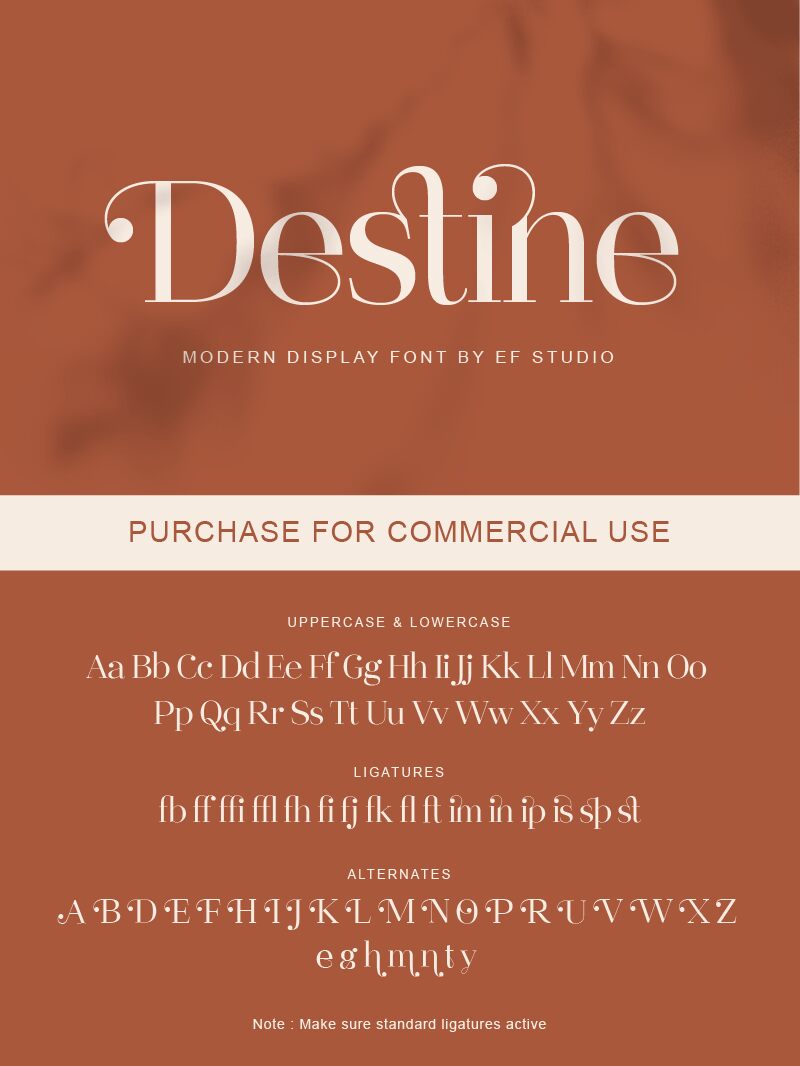
Destine font, designed by Ef Studio, is an elegant and sophisticated serif font that embodies a refined aesthetic. With its modern serif style and high contrast in strokes, the font delivers elegance and finesse to designs of all kinds. The displays are stylish and give readers the impression of luxuriousness whether incorporated in classic or contemporary projects.
A free serif font, Destine is suitable for luxury branding, editorial design, magazines, invitations/ greeting cards, poster designs, book or movie titles. It also looks beautiful on logos that require additional strategic kerning along with large scale projects in which the general public can take full notice of each stylish character.